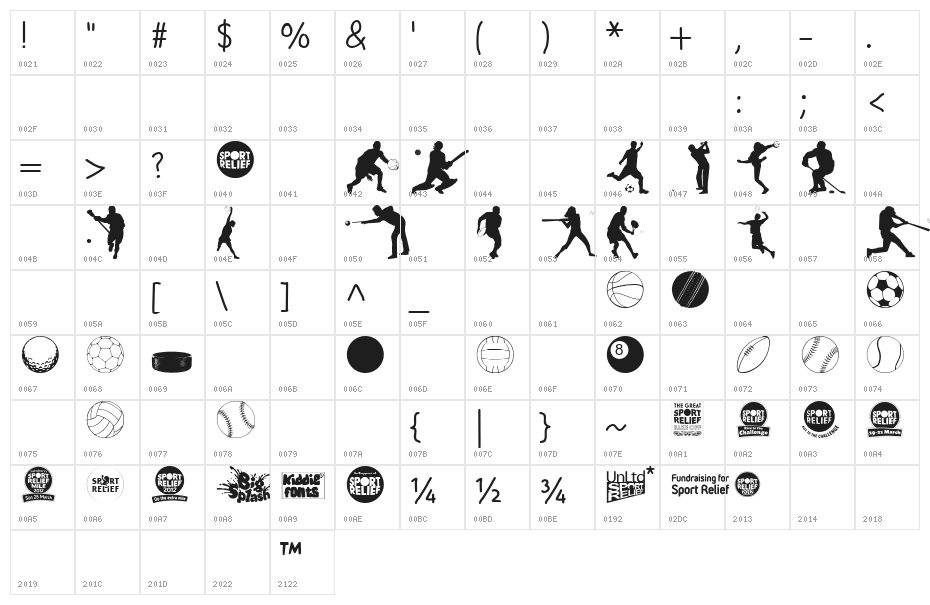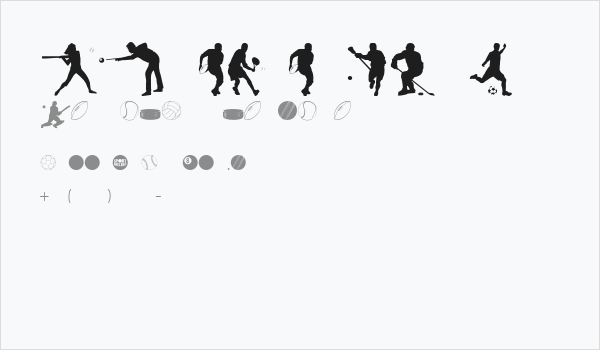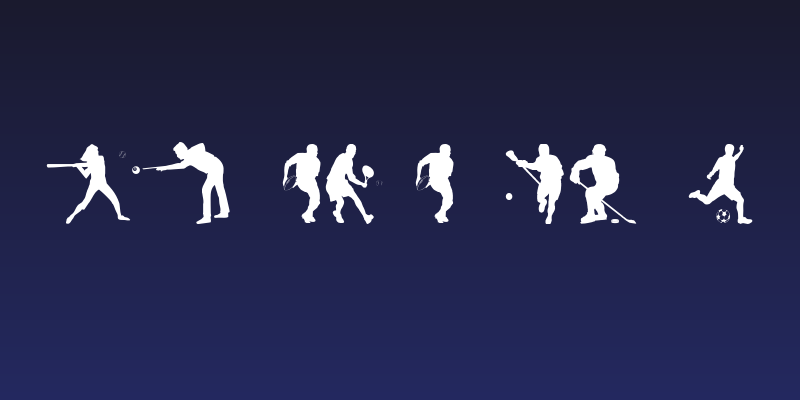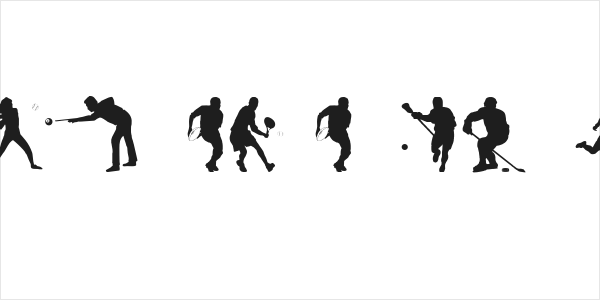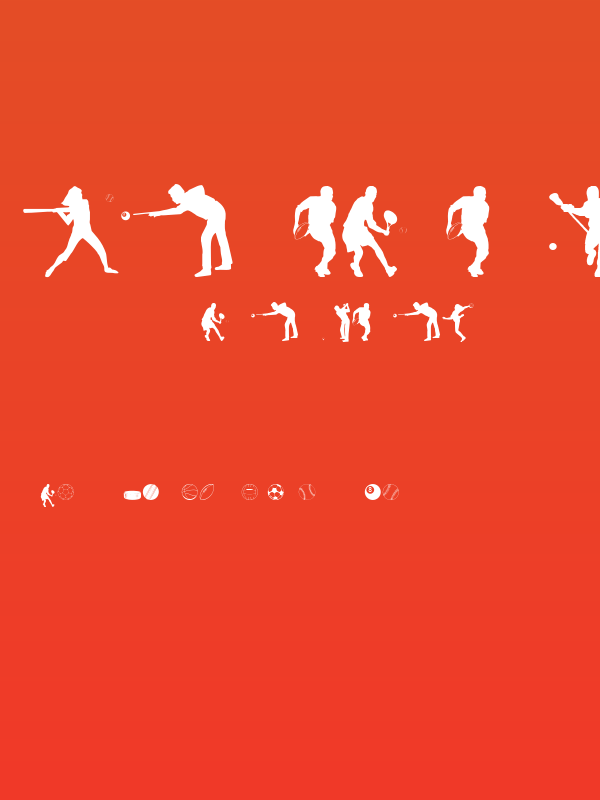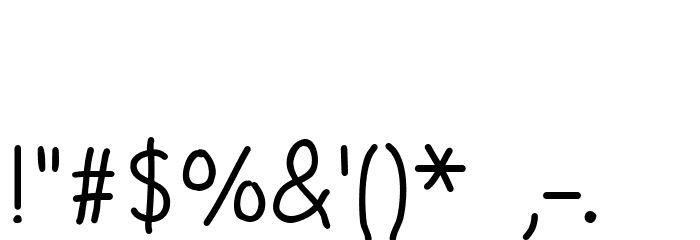
SPORT RELIEF Font
SPORT RELIEF Description
A playful and illustrative font featuring silhouettes of athletes in action and various sports equipment, combined with a handwritten, casual style for alphanumeric characters and symbols. The font merges pictorial sports icons with informal, rounded handwritten glyphs.
| Overall Style | Decorative, Playful, Thematic |
| Use Case | Headlines, Logos, Posters, Themed graphics |
| Proposed Projects | Sports event posters, youth sports team logos, playful invitations, activity flyers, themed merchandise. |